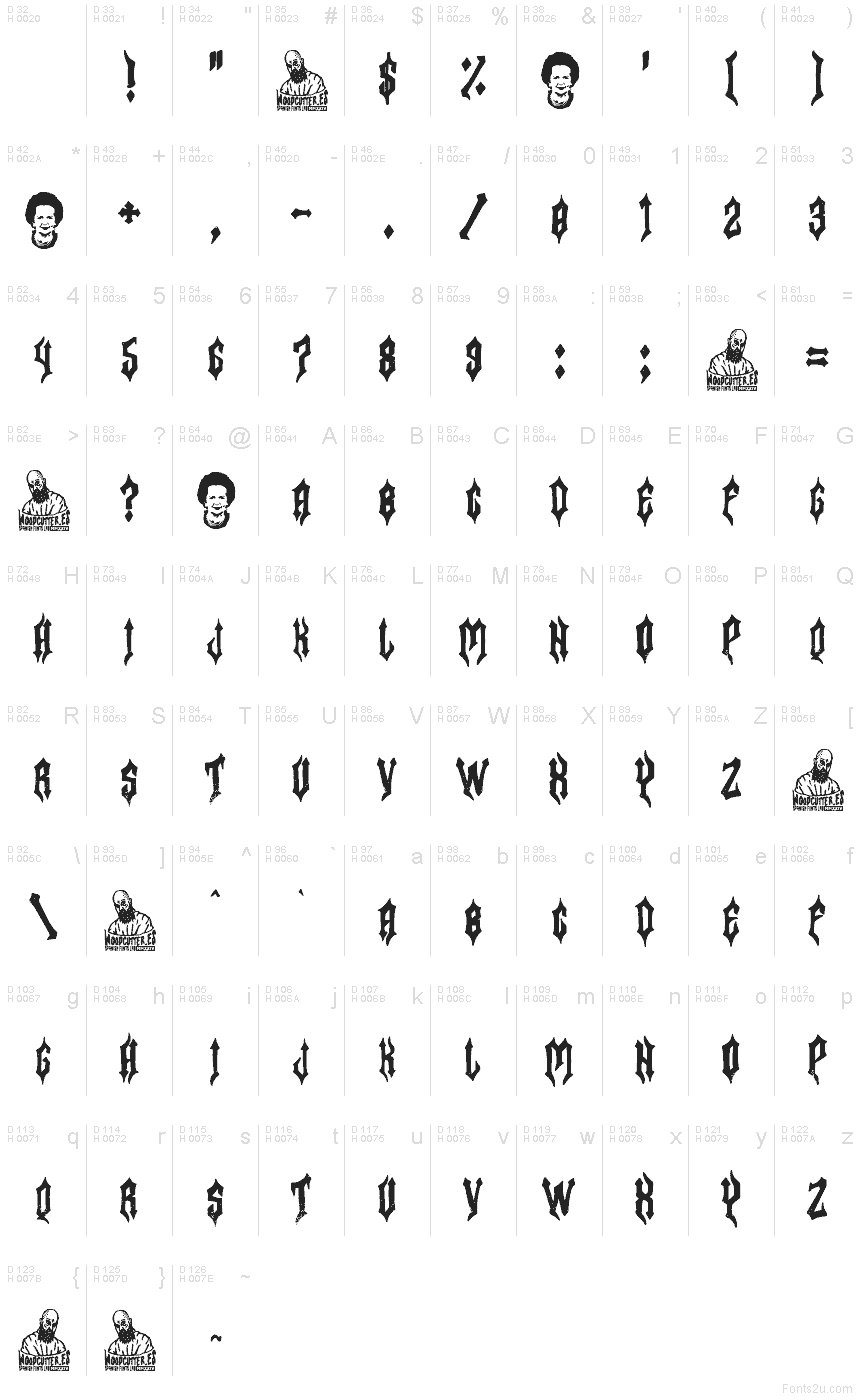
Margaret Thatcher
Margaret Thatcher font by Woodcutter immediately catches the eyes with its beautifully arranged gothic style and intricate details. The ornate characters make it perfect for both online and offline designs that require decorative elements, historical references, or deliver a certain dark mood. Its modern style and condensed width give an edgy yet elegant vibe to all written projects.
Take advantage of this free gothic font in book covers, tattoo designs, architectural magazines, newspaper headlines, album art covers for rock bands or heavy metal groups. Try them out in branding projects including logo creation of fashion houses; poster design of art galleries exhibitions; banners and website design.